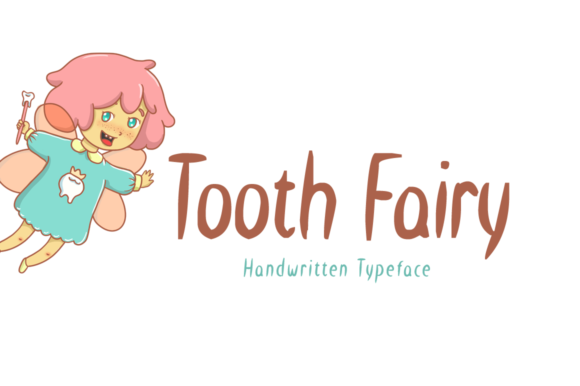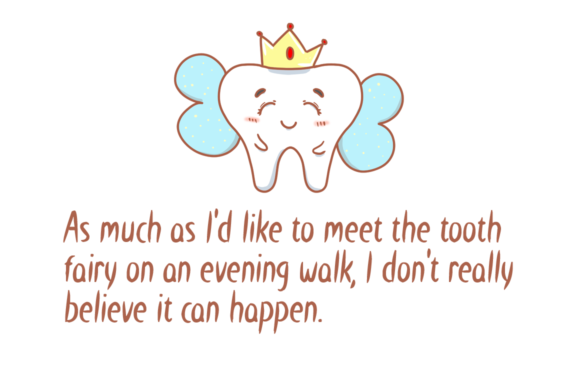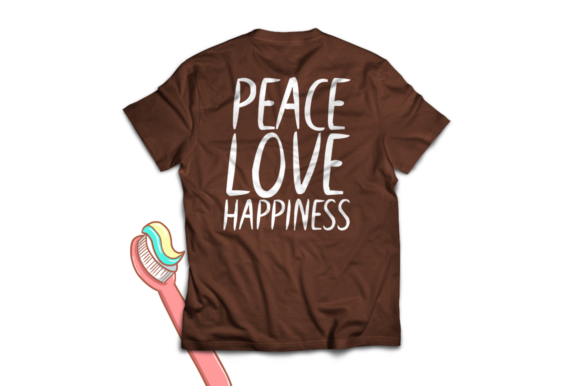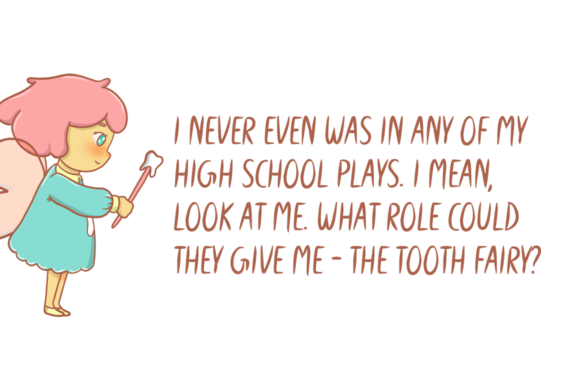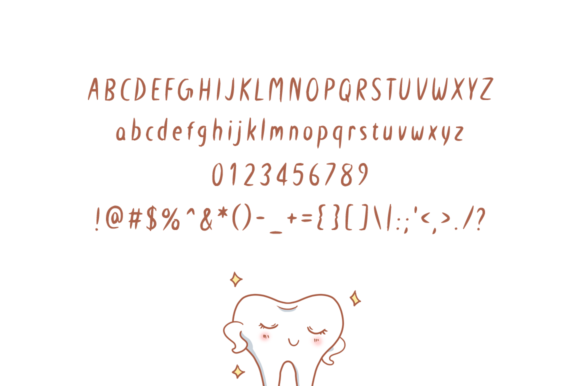
Tooth Fairy Font
About Tooth Fairy Font
Tooth Fairy is a whimsical and inspiring handwritten font with a unique touch. Fall in love with its adorable and youthful charm.